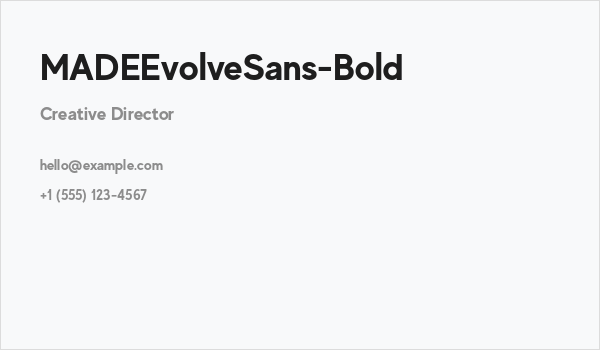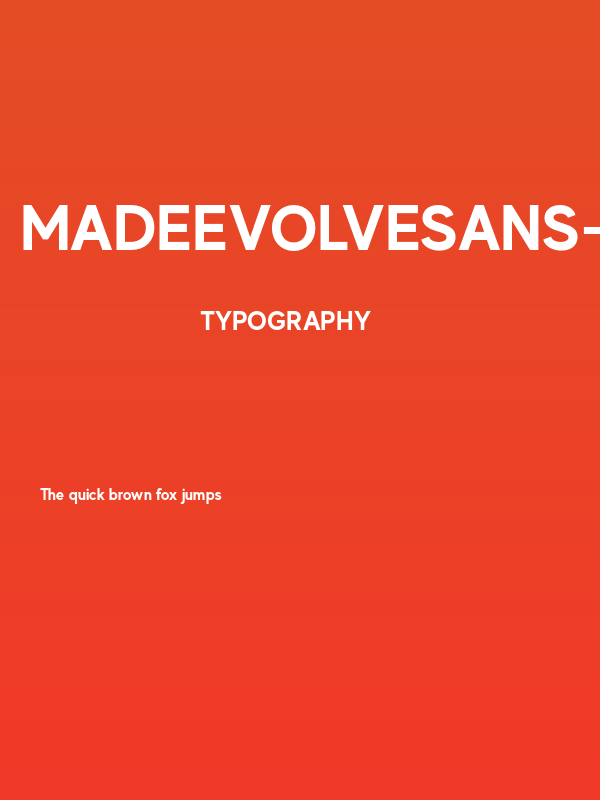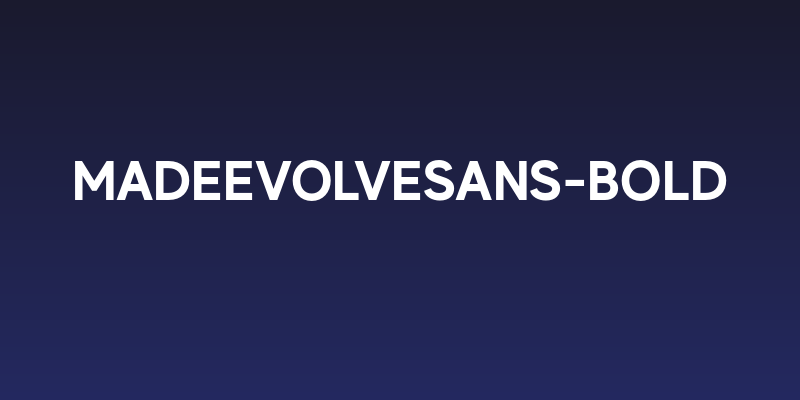
MADEEvolveSans-Bold Font
MADEEvolveSans-Bold Description
This font features a bold and modern sans-serif design, characterized by clean lines and a uniform stroke width. The uppercase and lowercase letters are well-proportioned, offering a balanced and harmonious appearance. The numerals are clear and legible, making them suitable for various applications. Special characters are distinct and maintain the font's overall aesthetic. The design is versatile, making it ideal for both digital and print media.